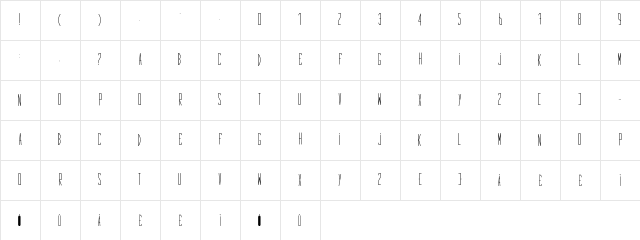
First Regular
Foundry: Antonio Locicero
First Family
First Regular
Design Context for First
First is a composed and adaptable typeface that performs quietly and consistently across a wide range of design contexts.